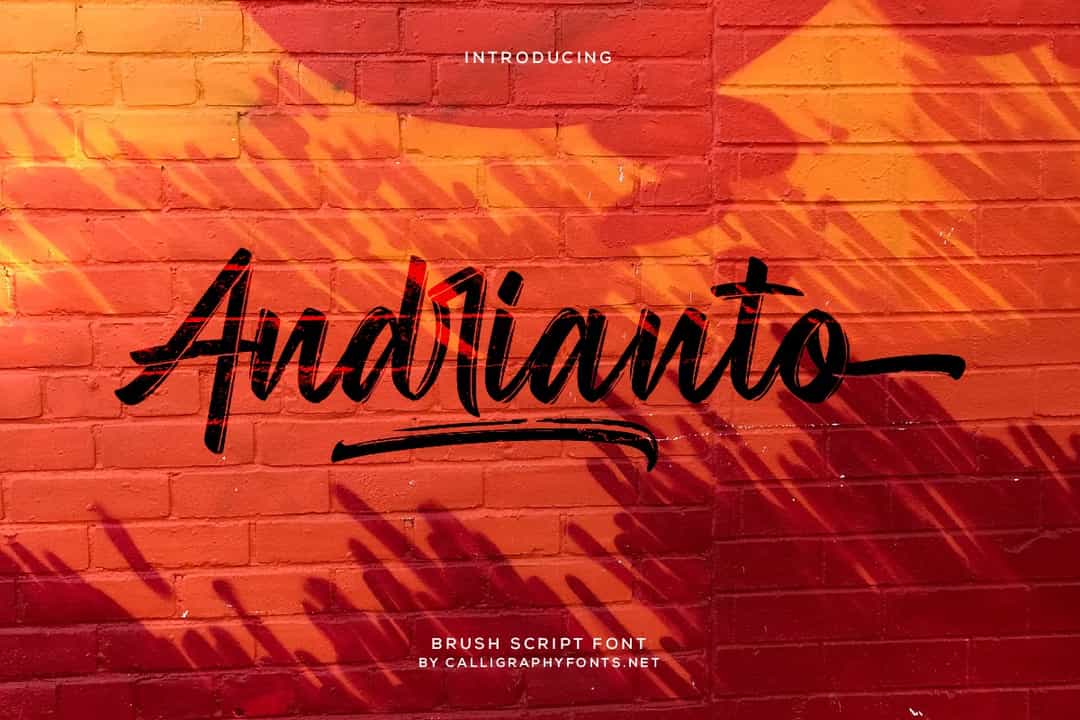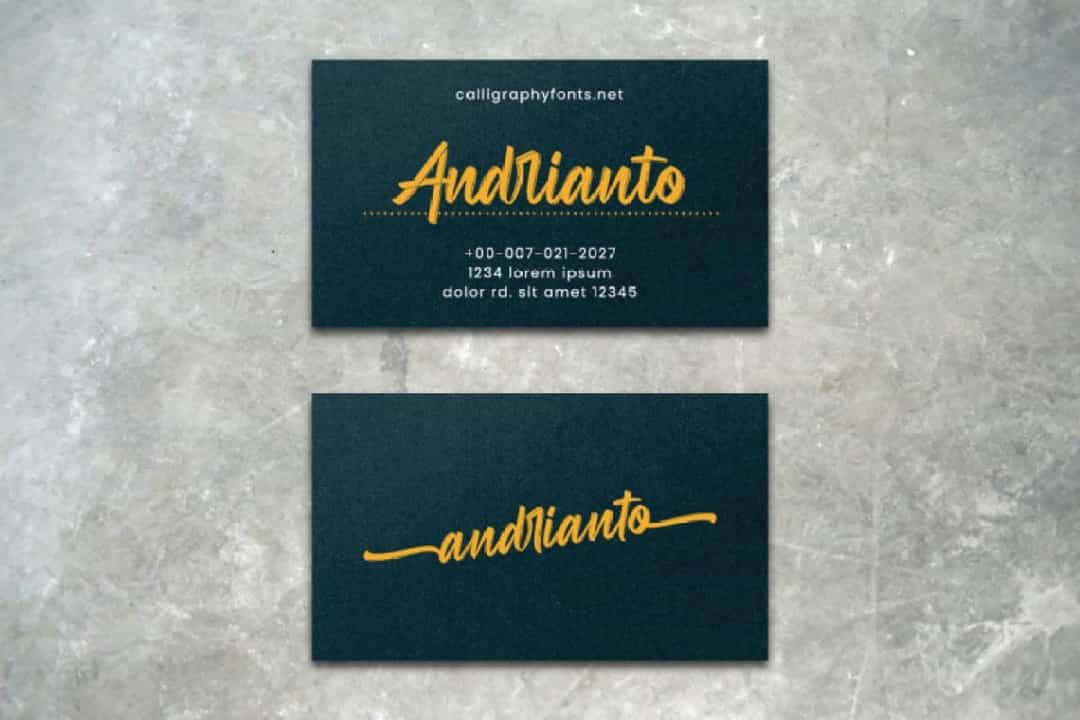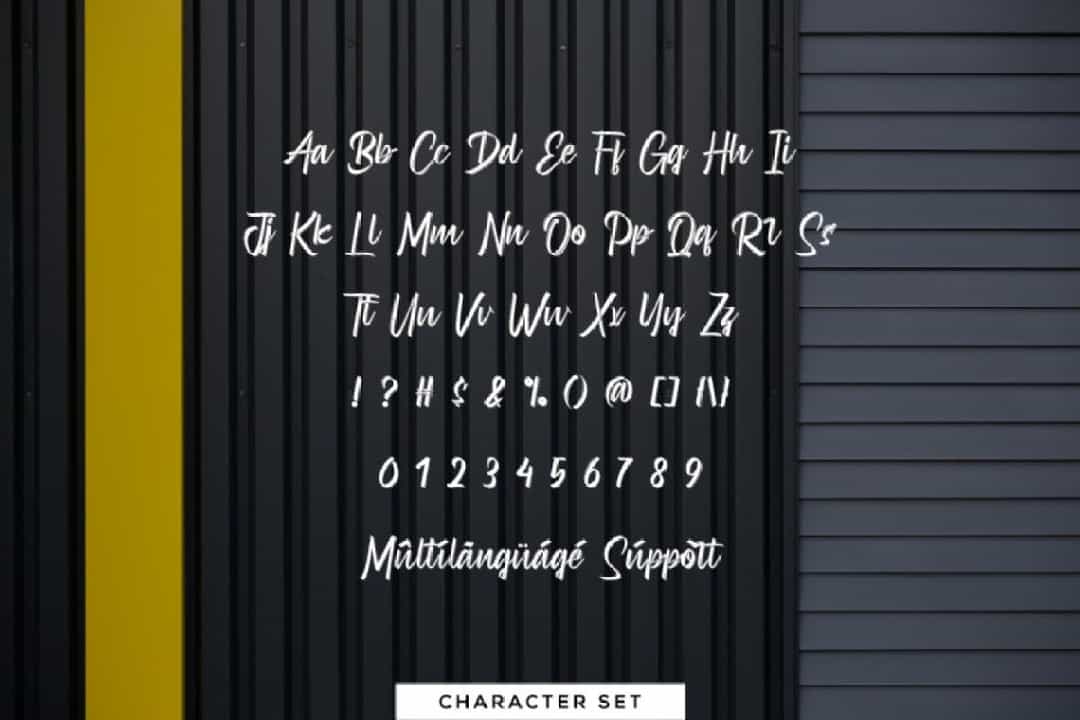
Andriantois is a brush style font with an artistic and beautiful design as well as a special texture and chic script. The look of this font is modern yet elegant; suitable for handwritten styles with beautiful patterns. It can be also applied for creating logos and branding products, and home goods – as well as writing text on the top of images.